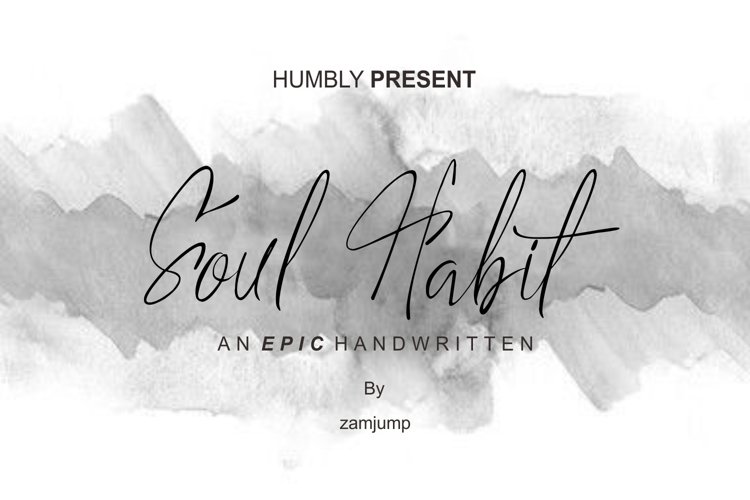
Soul Habit
This bundle is a epic handwritten font with casual chic flair. It is can be used of photography, clothing, boutique, logo , tagline, wedding invites maybe for labeling some handycraft.
Soul Habit includes full set of gorgeous uppercase and lowercase letters, numerals, a large range of punctuation and ligatures.